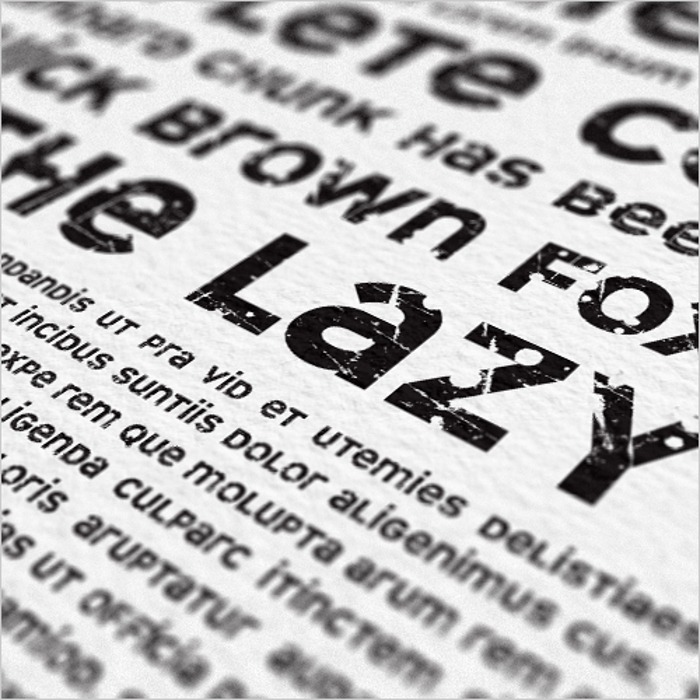
SD Cammello Font
SD Cammello is a bold unicase typeface inspired by recent Camel Cigarette branding seen in United States gas stations. Although not as heavy and more distressed, SD Cammello is very playful while still being extremely legible and strong at large and small size variations.
Every glyph in the set has a has been textured differently to acheive the most realistic effect possible with alternate textures for many different characters as well.
Support for English, Spanish, Portuguese, German, Danish, Swedish and more (246 Glyphs) ...